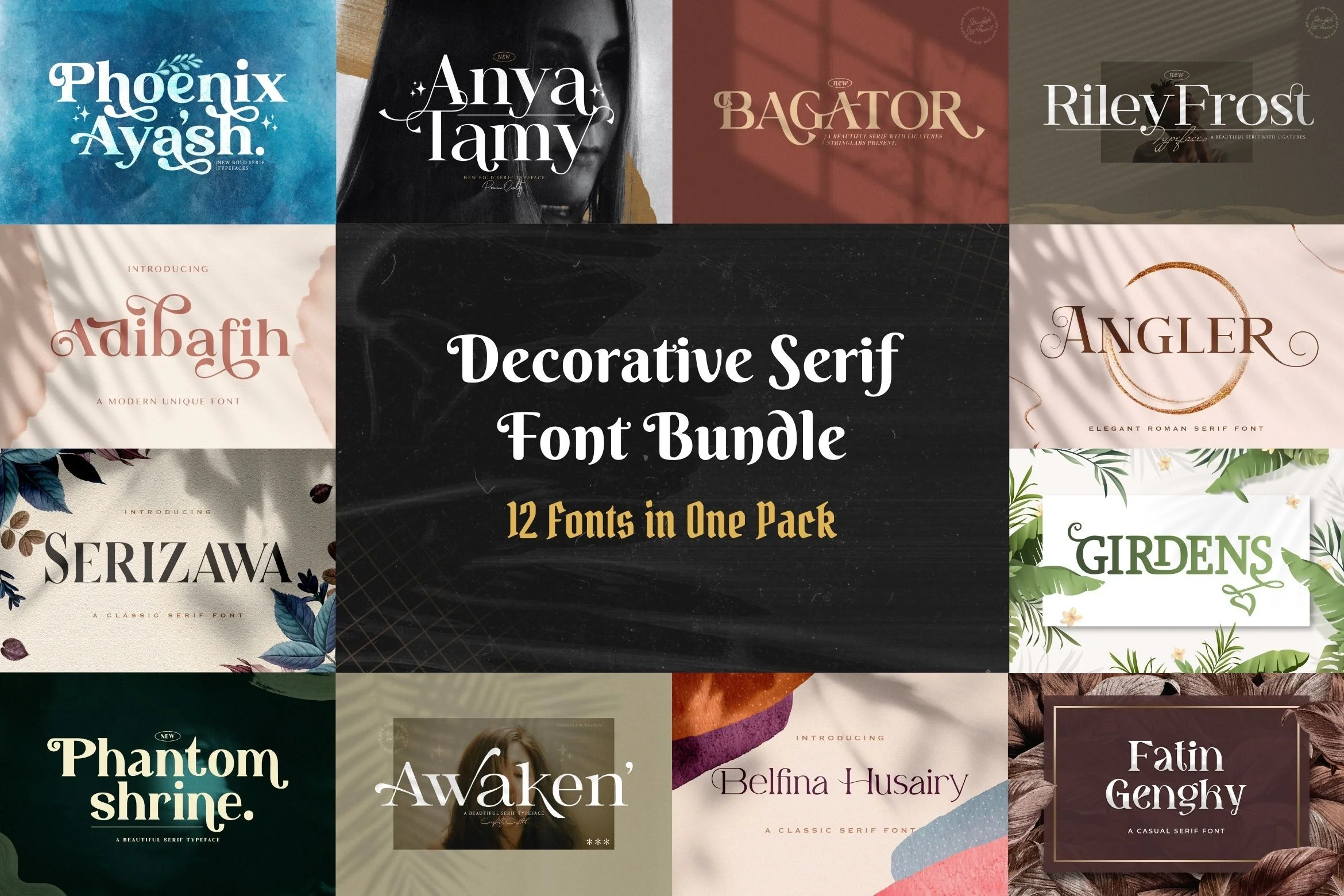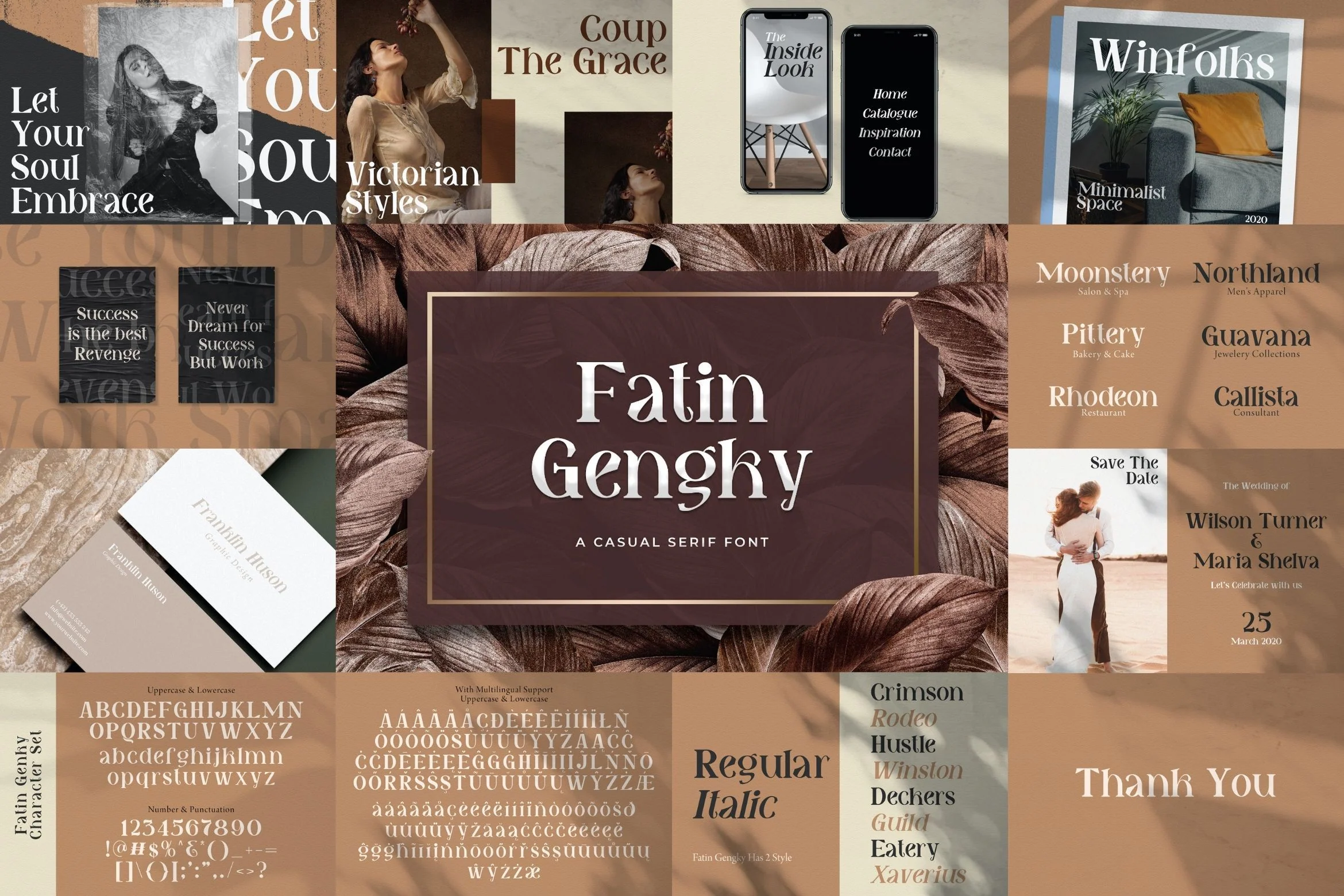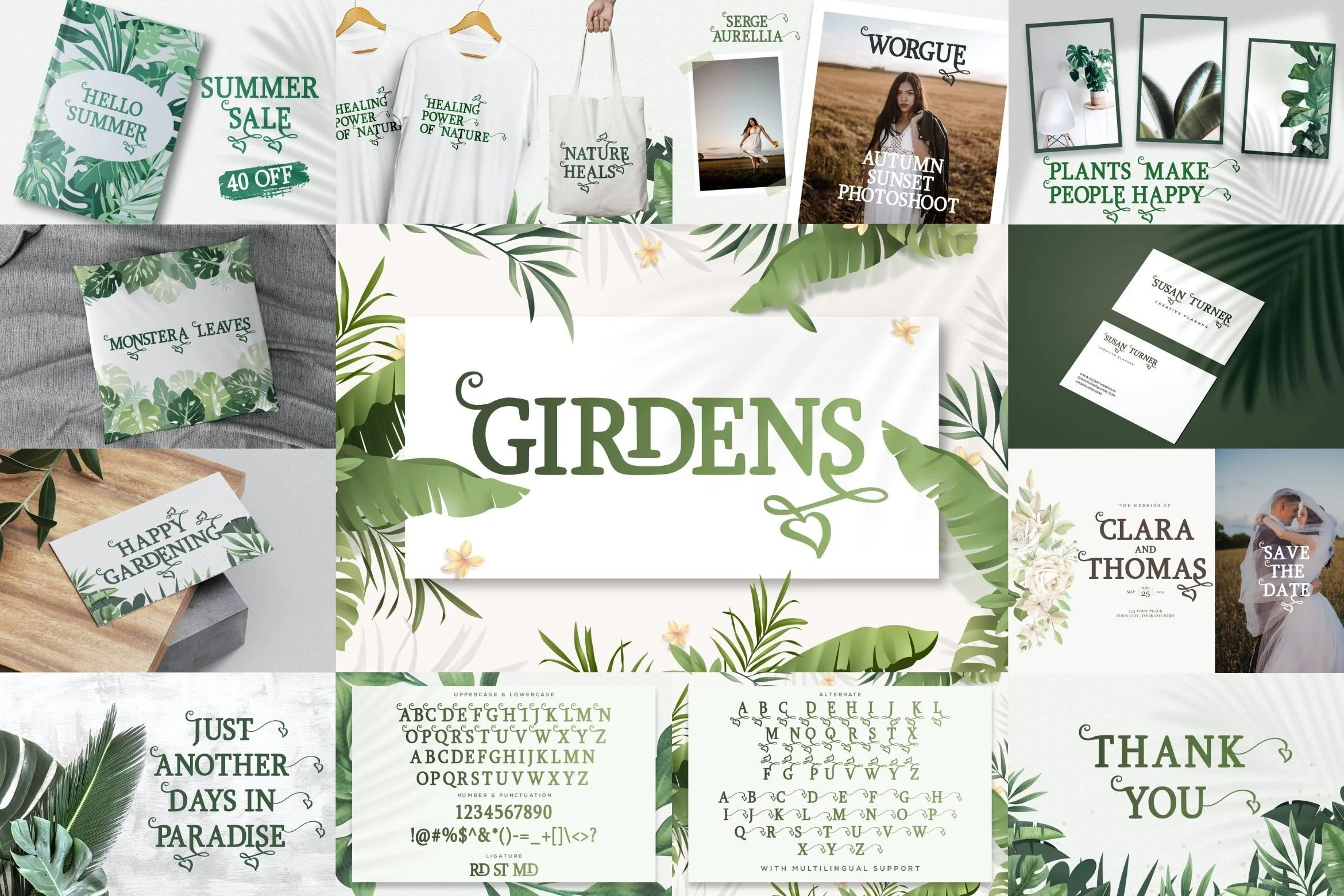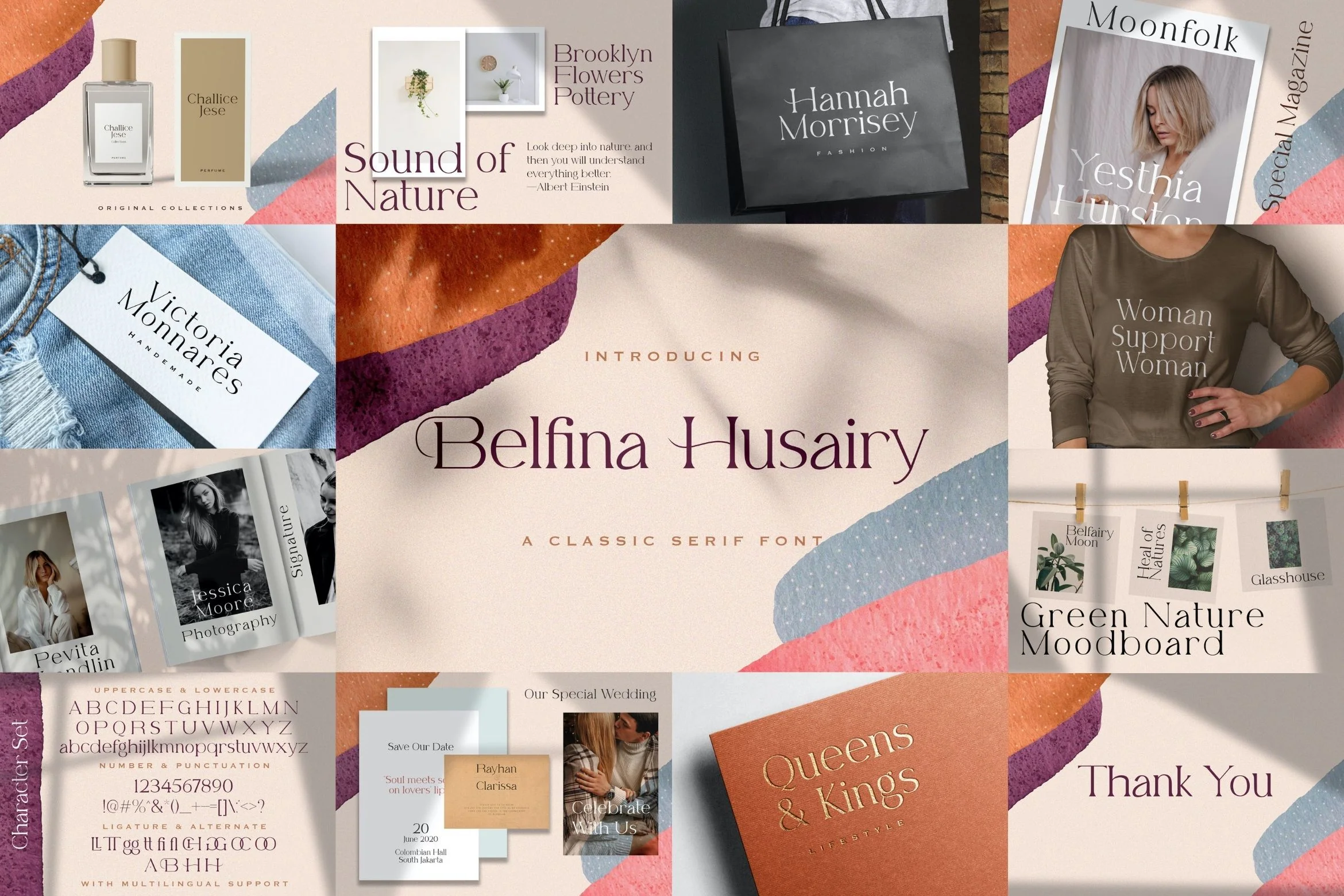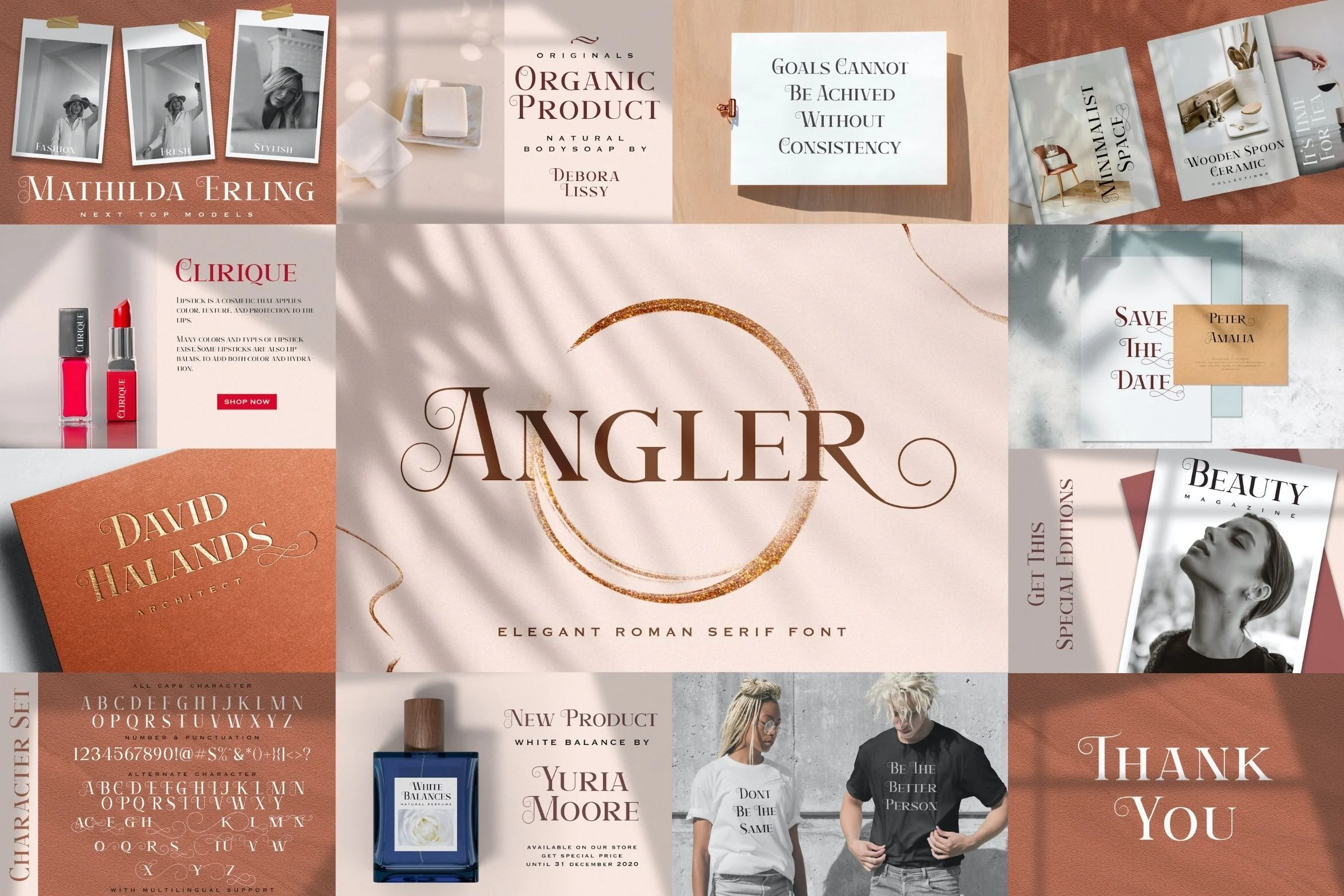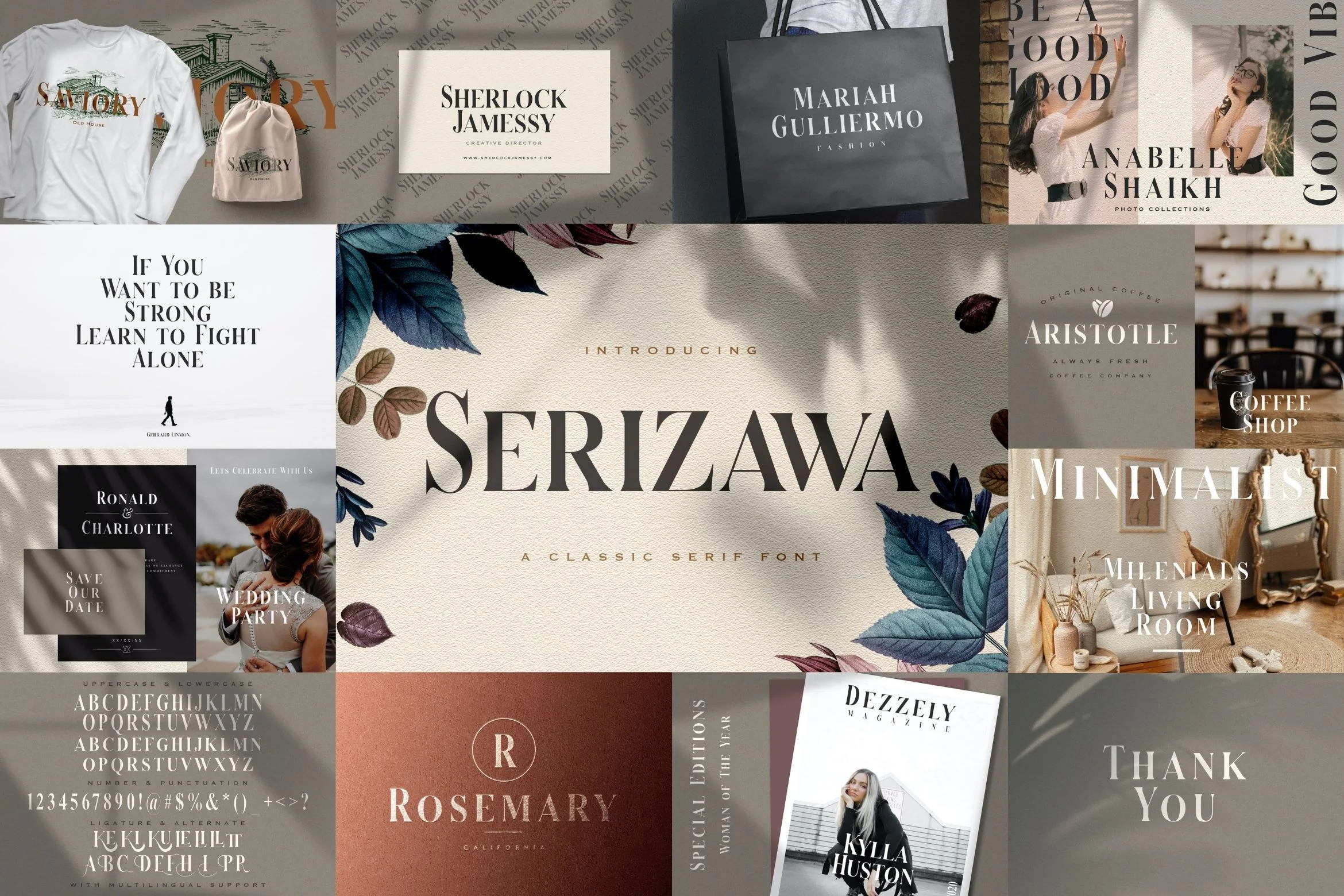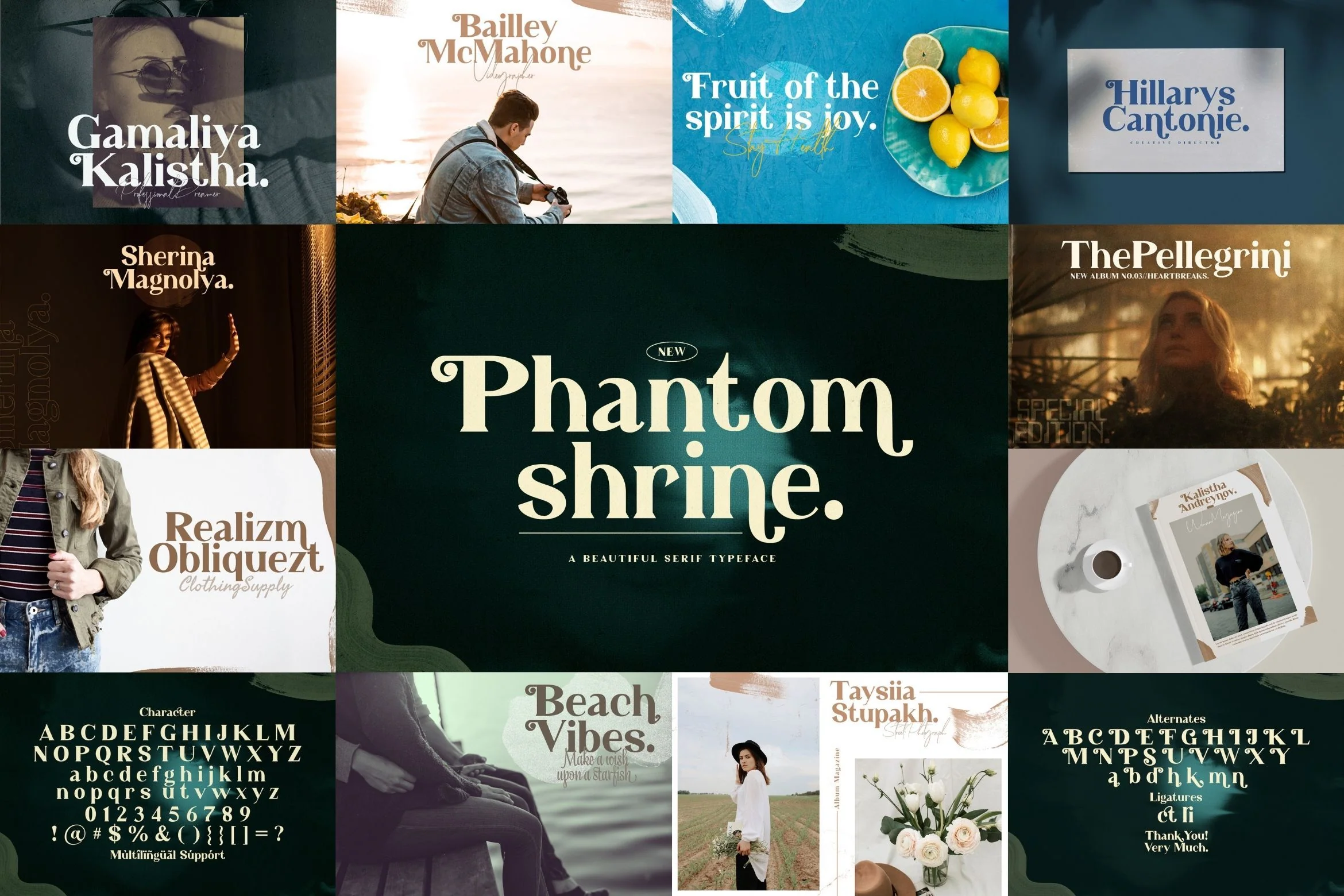
Decorative Serif Font Bundle
Introducing Decorative Serif Font Bundle. This font bundle contains 12 high quality decorative serif fonts with unique styles. This font bundle also has much ligatures and stylistic alternates that will make your design look outstanding and cool.
1. Phoenix Ayash
2. Anya Tamy
3. Adibafih
4. Riley Frost
5. Awaken
6. Bagator
7. Phantom Shrine
8. Serizawa
9. Angler
10. Belfina Husairy
11. Girdens
12. Fatin Gengky